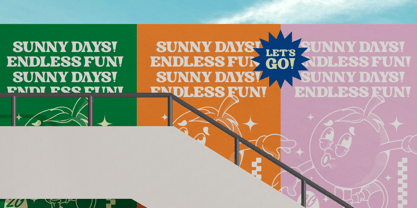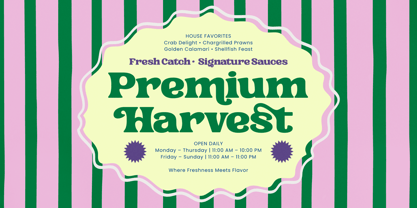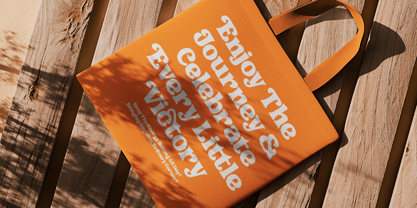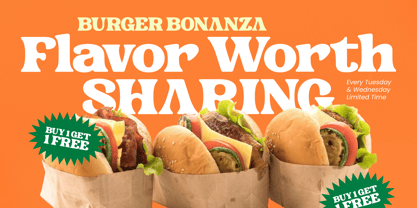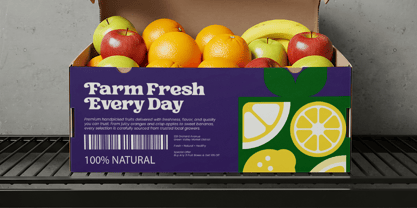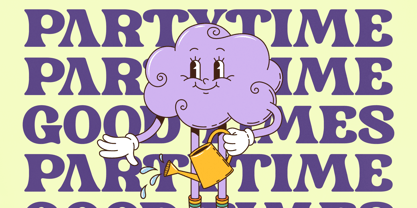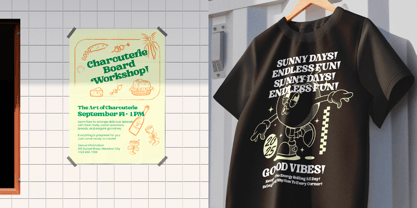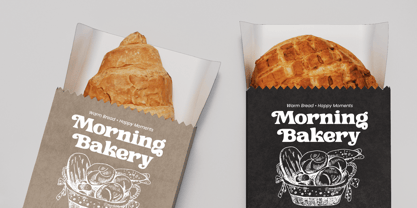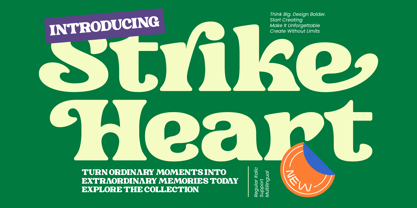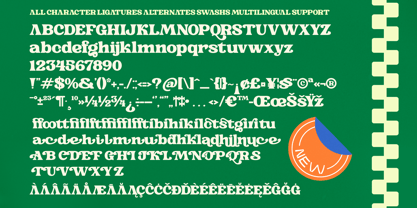
Strike Heart
by Timelesstype Studio
The Strike Heart Font Family was designed by Heru Utama Putra and published by Timelesstype Studio. Strike Heart contains 2 styles and family package options. More about this family
Strike Heart – Display Serif Bold is a retro-inspired masterpiece that captures attention through its high-contrast strokes and fluid, organic curves. This decorative serif offers a unique balance of playful energy and bold authority, making it an essential asset for designers looking to infuse their work with a distinctive personality.
Command attention across every medium with a font engineered for maximum visual impact. This typeface is the perfect solution for luxury branding, high-end packaging, and sophisticated editorial design. It is perfect for creating standout logos, impactful posters, and vibrant magazine layouts where a premium aesthetic is required to engage a discerning audience.